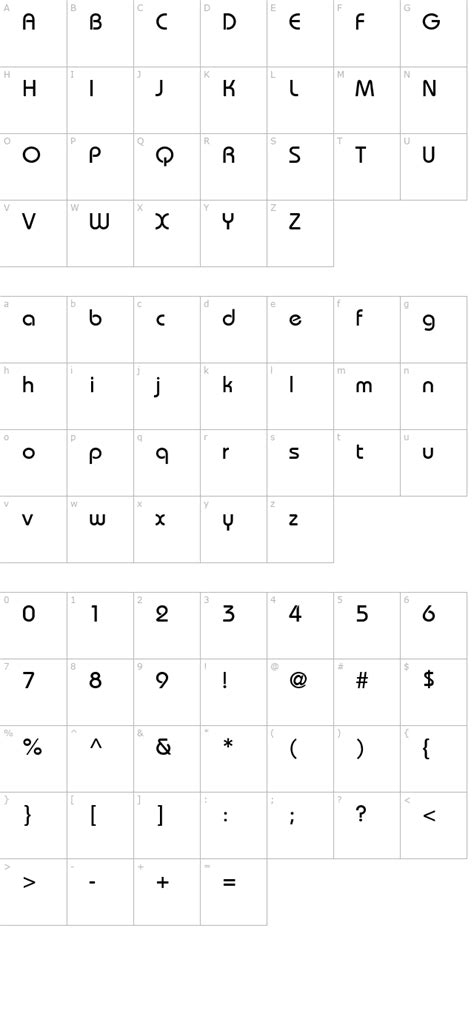
Hey guys! Are you on the hunt for that perfect font to give your projects a sleek, modern edge? Look no further! The IIBahamas Plain font might just be what you need. This guide will walk you through everything you need to know about this versatile font, where to find it for free, and how to make the most of it in your designs.
What Makes IIBahamas Plain Font So Special?
Let’s dive into why the IIBahamas Plain font has become a favorite among designers. When exploring font options, IIBahamas Plain stands out due to its simplicity and contemporary design, making it an excellent choice for various projects. This font features clean lines and a balanced structure, giving it a modern and professional appearance. Its versatility shines through in different applications, whether you’re working on branding materials, website designs, or print layouts. One of the key highlights of IIBahamas Plain is its legibility. The font is designed to be easily readable across various sizes and resolutions, which is crucial for ensuring your message is clear and accessible to your audience. Think about how often you encounter fonts that are stylish but difficult to read – IIBahamas Plain avoids this pitfall, making it both visually appealing and practical. Moreover, its neutral design allows it to pair well with other fonts. This means you can use IIBahamas Plain for body text and combine it with a more decorative font for headings, creating a balanced and cohesive visual hierarchy. For example, pairing it with a bold serif font can add a touch of elegance, while using a script font can bring in a playful contrast. The adaptability of IIBahamas Plain extends to various design styles. Whether you’re aiming for a minimalist look or something more complex, this font can fit seamlessly into your project. In the world of branding, consistency is key, and IIBahamas Plain ensures that your brand’s typography remains consistent across all platforms. Consider a scenario where you’re designing a website for a tech startup. Using IIBahamas Plain for the website’s text can give it a clean and modern feel, aligning perfectly with the brand’s innovative image. Similarly, if you’re creating marketing materials for a corporate event, using this font can convey professionalism and clarity. The design of IIBahamas Plain is meticulously crafted to ensure each character complements the others, resulting in a harmonious and visually pleasing text. This attention to detail enhances the overall aesthetic appeal of your designs, making them more engaging and impactful. Its simplicity does not equate to a lack of character; rather, it provides a foundation upon which you can build your creative ideas. Think of it as a blank canvas that allows your content to shine. Ultimately, the appeal of IIBahamas Plain lies in its ability to blend seamlessly into any design while maintaining its distinct identity. Its readability, versatility, and modern aesthetic make it a valuable asset for designers looking to create professional and engaging content. So, whether you’re a seasoned designer or just starting out, IIBahamas Plain is a font worth exploring for your next project. Let’s keep going!
Using IIBahamas Plain Font in Your Projects: Tips and Tricks
Okay, you’ve got the IIBahamas Plain font installed – now what? Let’s explore some cool ways to use it in your projects and make your designs pop! Using the IIBahamas Plain font effectively in your projects requires a bit of understanding of its strengths and weaknesses. This font is known for its simplicity and modern aesthetic, making it a versatile choice for a wide range of design applications. One of the key considerations when using IIBahamas Plain is its legibility. The font is designed to be easily readable across various sizes and resolutions, which is crucial for ensuring your message is clear and accessible to your audience. However, it’s still important to choose an appropriate font size and line height to optimize readability, especially for body text. When using IIBahamas Plain for headings, consider pairing it with a complementary font for body text. A classic serif font, such as Times New Roman or Georgia, can provide a nice contrast to the clean lines of IIBahamas Plain , creating a balanced and visually appealing design. Alternatively, you can pair IIBahamas Plain with another sans-serif font that has a slightly different weight or style to create a subtle contrast. In terms of branding, IIBahamas Plain can be an excellent choice for creating a modern and professional image. Its simplicity and versatility make it suitable for a wide range of industries, from technology and finance to healthcare and education. When using IIBahamas Plain in your branding materials, such as logos, business cards, and website designs, ensure that the font is consistent with your brand’s overall aesthetic and messaging. Experiment with different weights and styles of IIBahamas Plain to create visual interest and hierarchy. For example, you can use a bold weight for headings and a regular weight for body text to create a clear visual distinction between different sections of your design. Additionally, you can use italics to emphasize certain words or phrases. When using IIBahamas Plain in web design, consider its performance implications. Large font files can slow down website loading times, which can negatively impact user experience. To avoid this issue, optimize the font files by compressing them and using web-safe font formats, such as WOFF and WOFF2. Additionally, consider using CSS font-display properties to control how the font is displayed while it’s loading. IIBahamas Plain can also be used effectively in print design. When designing brochures, posters, and other print materials, ensure that the font is properly embedded in the PDF file to prevent font substitution issues. Additionally, consider the printing resolution and choose an appropriate font size to ensure that the text is sharp and legible. In conclusion, the IIBahamas Plain font is a versatile and modern typeface that can be used effectively in a wide range of design projects. By understanding its strengths and weaknesses and following these tips and tricks, you can leverage IIBahamas Plain to create visually appealing and impactful designs. You’re now equipped with the knowledge to find, install, and use the IIBahamas Plain font (or a similar one) in your projects. Go forth and create awesome designs! Good luck, and have fun experimenting with typography!